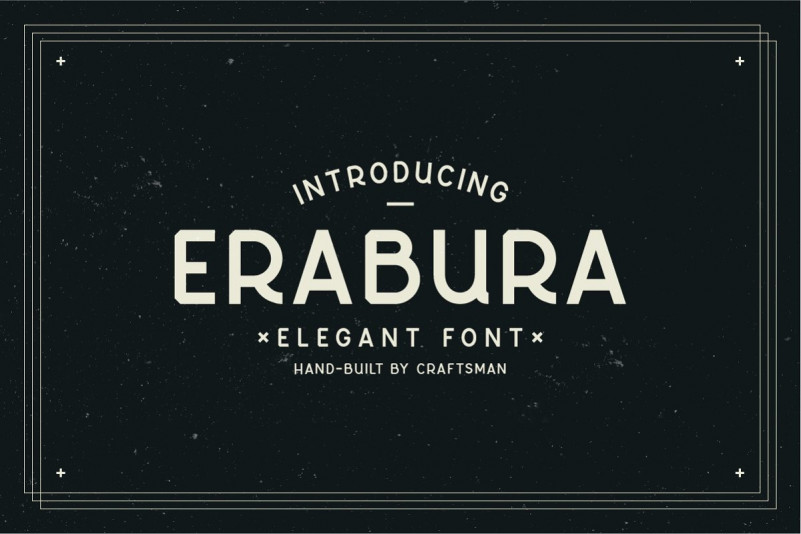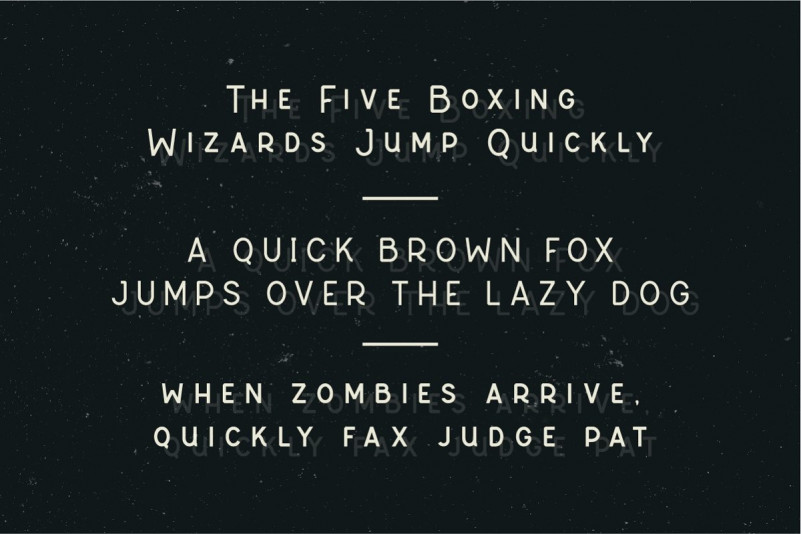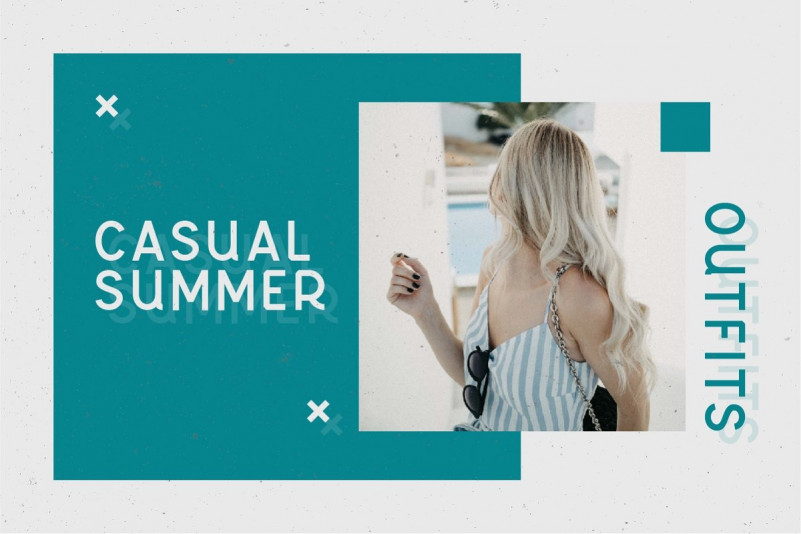
Erabura Display Font
Erabura Display  Font
Tacikworks presents the new Elegant Font hand-build by craftsman. These clean and elegant font will be good to use in your design. The font perfect for create brand logo, badges, clothing design, and much more